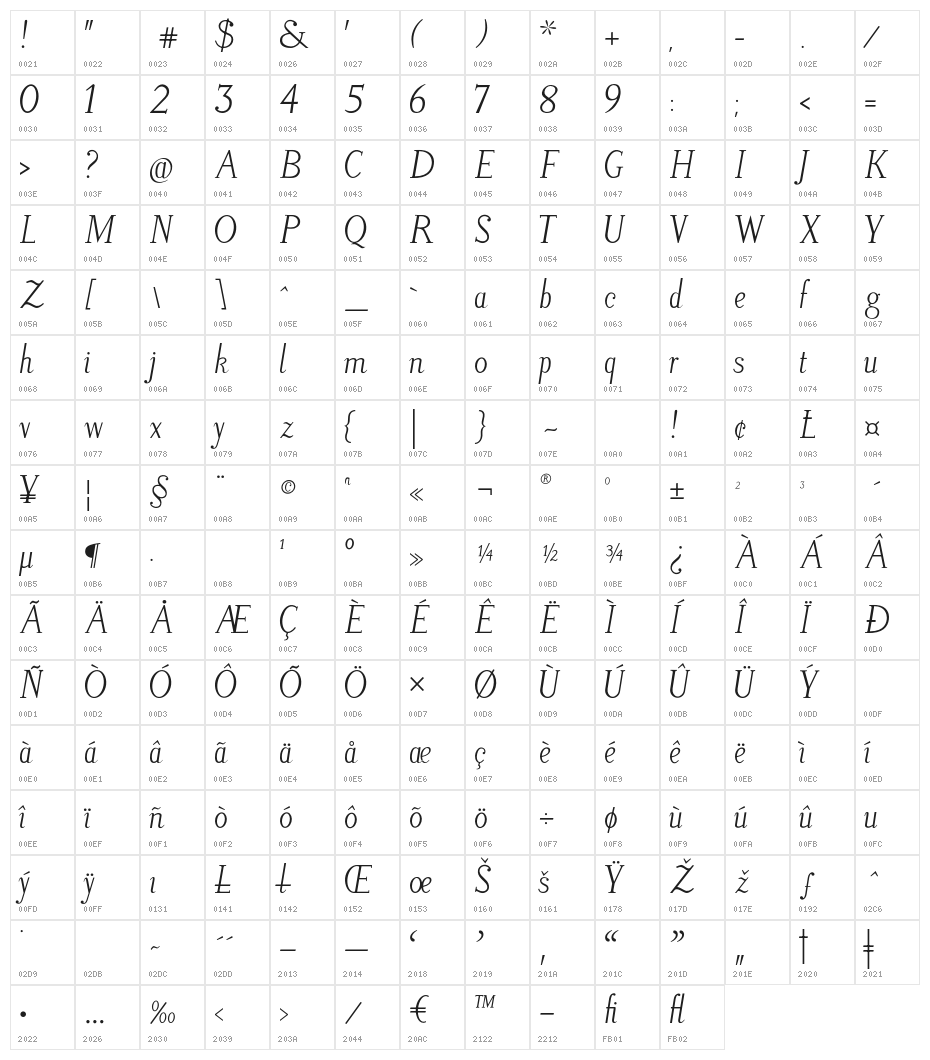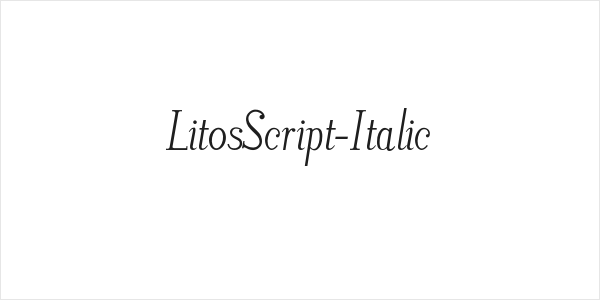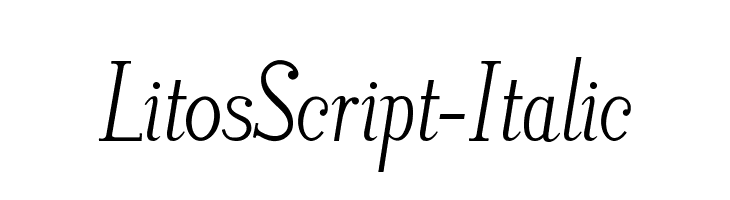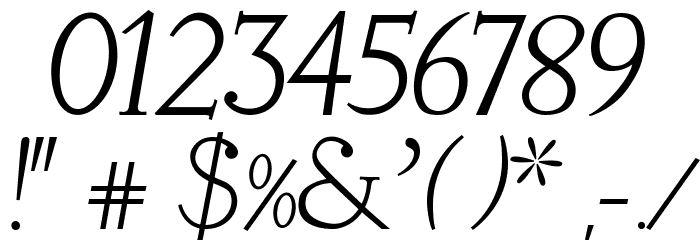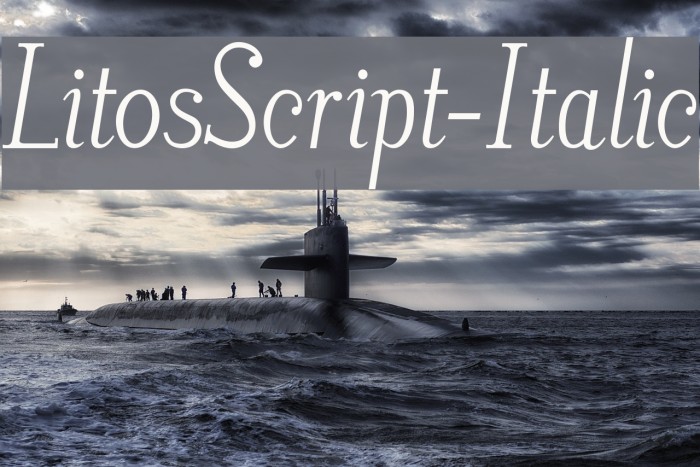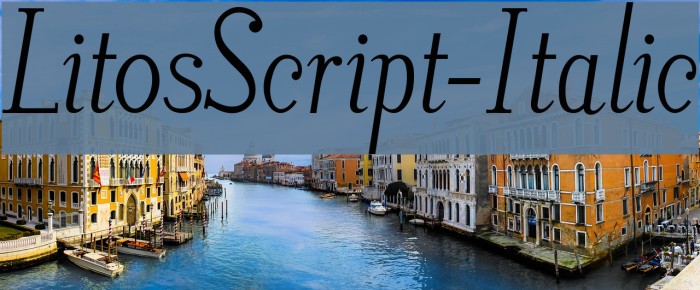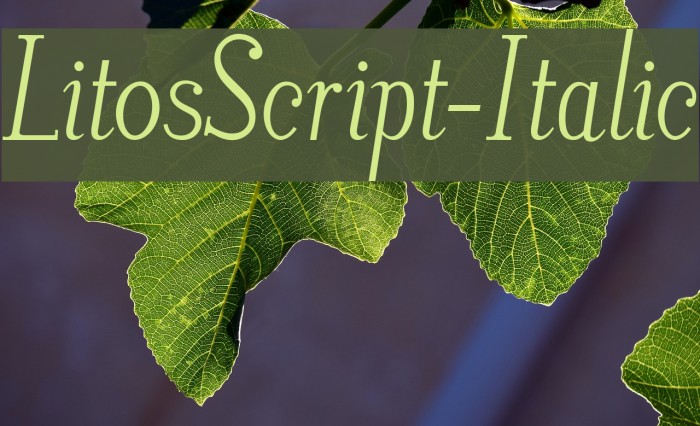
LitosScript-Italic Font
LitosScript-Italic Description
This font exhibits a sophisticated and elegant script style, characterized by its flowing and cursive letterforms. The italic nature of the font adds a sense of movement and grace, making it ideal for formal and decorative applications. The uppercase letters are tall and slender, while the lowercase letters maintain a consistent flow with subtle curves and loops. The numerals are clear and legible, complementing the overall aesthetic. Special characters are well-integrated, maintaining the font's cohesive style.
| Overall Style | Elegant |
| Use Case | Headlines, Invitations, Decorative text |
| Proposed Projects | Ideal for wedding invitations, elegant branding, formal event programs, and decorative headings. |